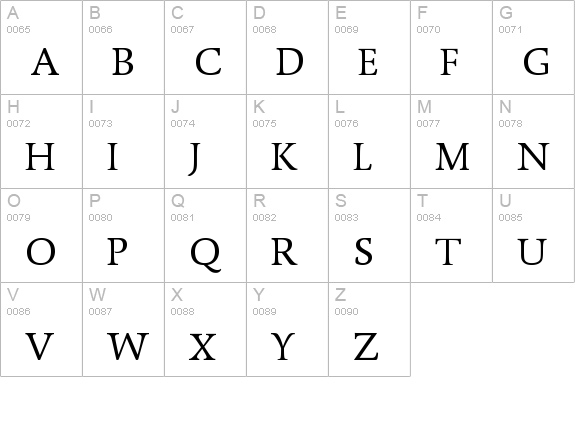
Discover the elegant and sophisticated DTLDorianTCaps font, perfect for adding a touch of class to your design projects. This timeless typeface features stylish and intricate capital letters that exude a sense of refinement and charm. Whether you're working on invitations, logos, or branding materials, DTLDorianTCaps is sure to make a lasting impression. Best of all, this exquisite font is available for free download exclusively at FontsMarket.com. Don't miss out on the opportunity to enhance your designs with the beauty and grace of DTLDorianTCaps. Download it today and elevate your creative projects to new heights.